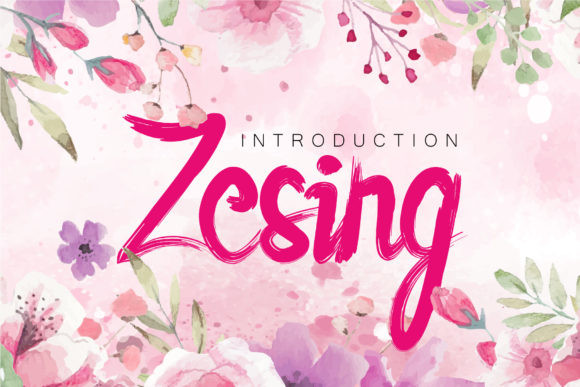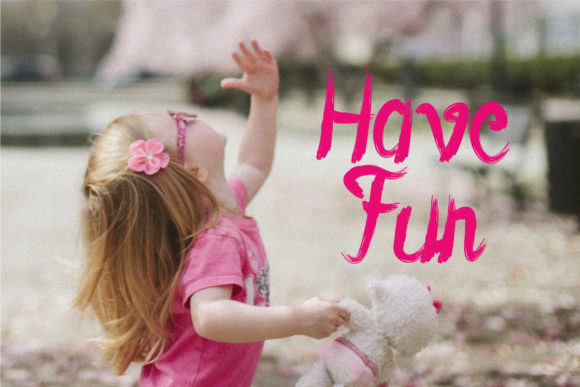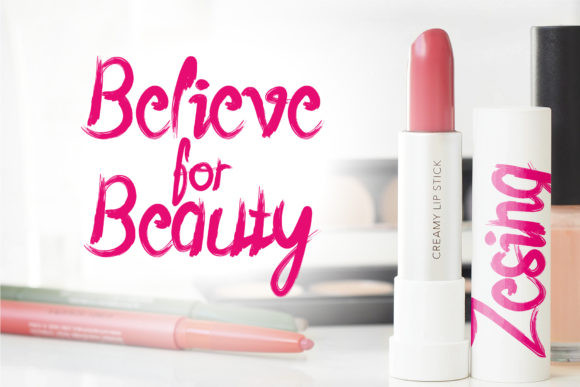
Zesing Font
Zesing is authentic and charming, but also elegant. This versatile script font has a wide range of applications ranging from greeting cards to quotes and is guaranteed to add a romantic touch to your next design.